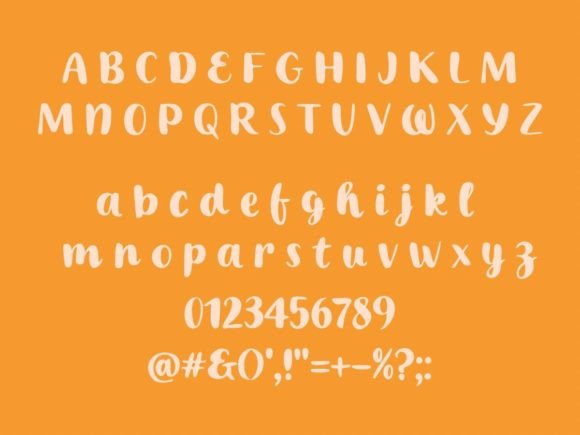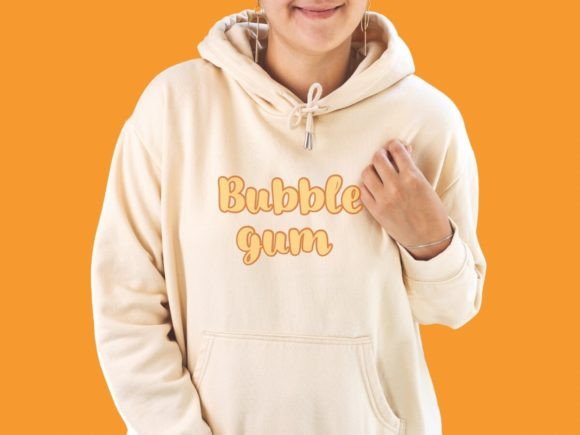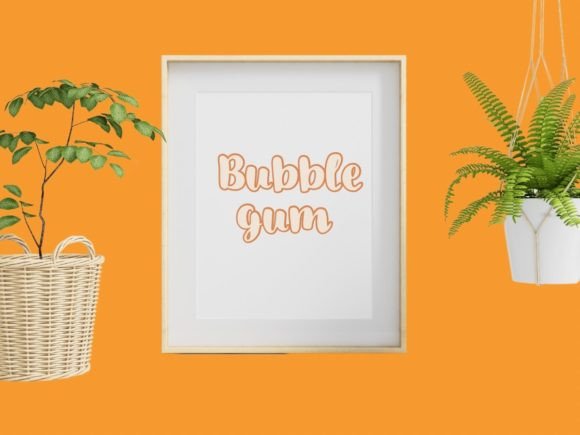
Get Ready to Pop with the Bubble Gum Font
Enter the Bubble Gum Font, a delightful, playful typeface that’s sure to add a pop of fun and charm to your designs. Perfect for any creative project that needs a touch of whimsy and joy, this font is a game-changer for designers looking to elevate their work. With its bubbly, energetic vibe, the Bubble Gum Font is a valuable addition to any design toolkit – and we can’t wait to share it with you!
- Unique Characteristics: This font features a playful, cursive script with rounded edges and a bouncy feel, making it ideal for creating fun and approachable designs.
Bubble Gum Font Review
First impressions are everything, and the Bubble Gum Font certainly doesn’t disappoint. Its playful, whimsical feel is reminiscent of a carefree childhood, and it’s easy to see why it’s a popular choice for fun and creative projects. ✨
Here are some of the things that really work well with this font:
- Clean lines and smooth curves give it a modern, yet approachable feel.
- The bold and regular weights offer a nice balance, making it versatile for a range of applications.
- It’s highly legible, even at smaller sizes, which is a must for any font.
- The font’s playful feel can come across as childish or immature if not used carefully.
- The character set is relatively limited, which may not be ideal for projects that require a wide range of languages or special characters.
Overall, I think the Bubble Gum Font is a great choice for projects that require a fun, youthful vibe. Just be sure to use it thoughtfully and consider the potential limitations. With the right design, it can add a playful touch that really pops! ✨
Use the Bubble Gum Font to create playful and eye-catching titles and headings.
Combine the font with bold colors and graphics to create visually appealing designs.
Experiment with different font sizes and styles to add depth and interest to your designs.
The Bubble Gum Font is perfect for:
Children’s party invitations and decorations
Food and beverage branding
Playful advertising and marketing campaigns